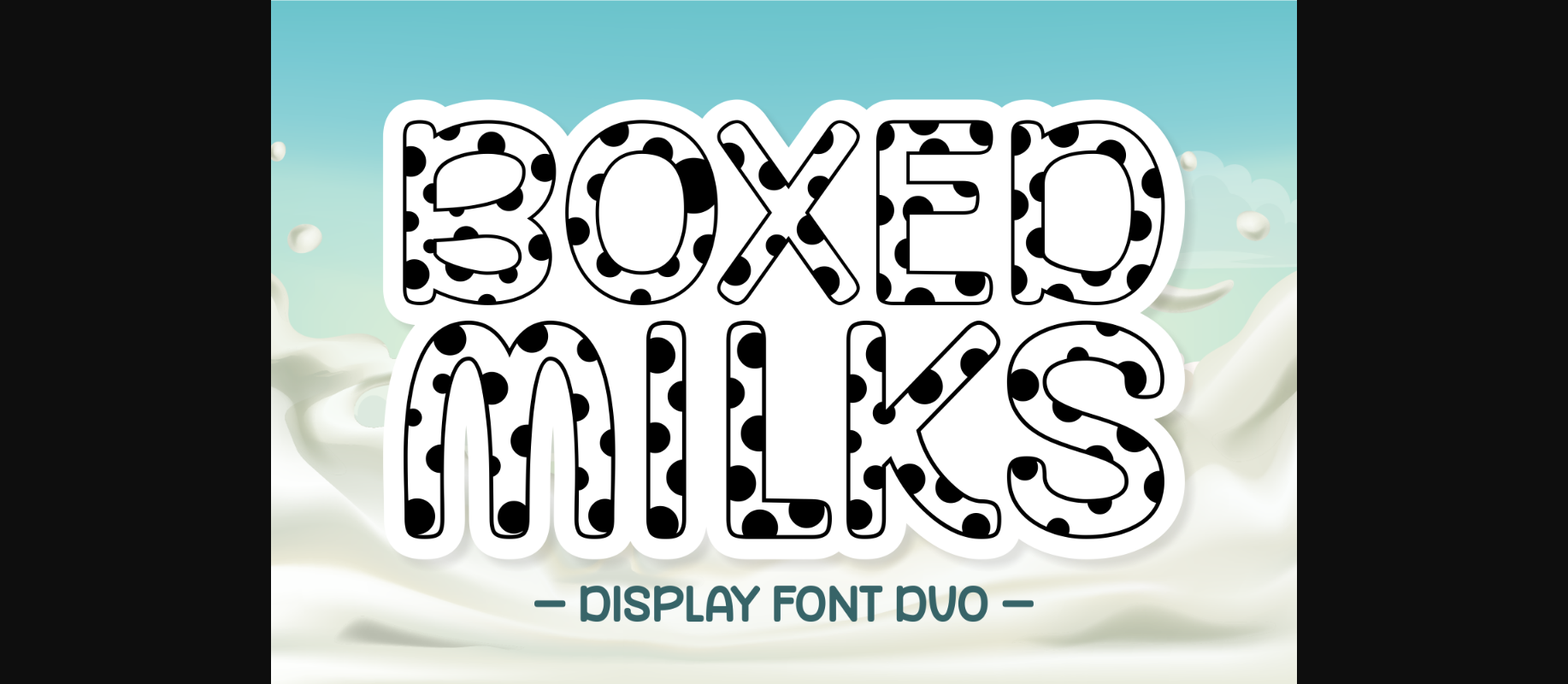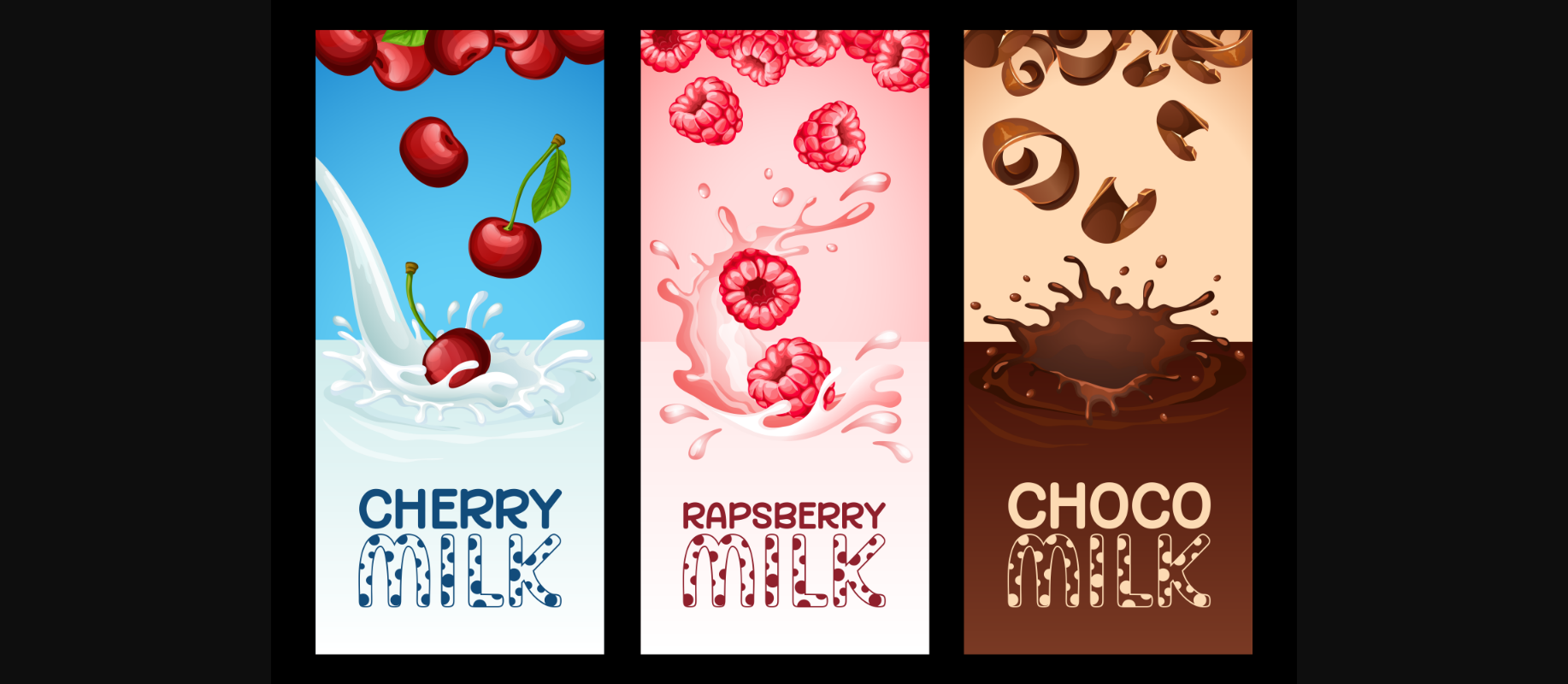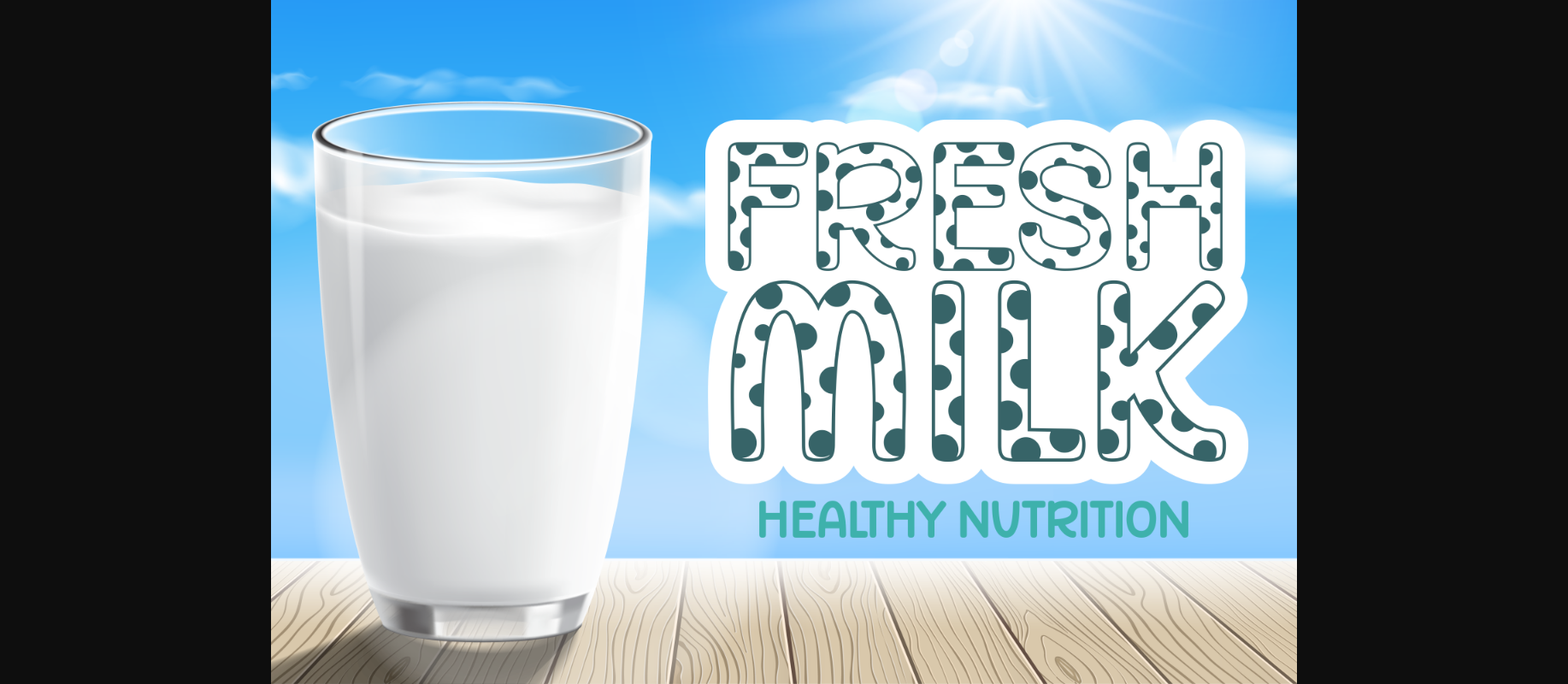
About Boxed Milks Font
Boxed Milks is the cutest cow print font out there! Take your kid-friendly designs to the next level and make your nursery decorations, onesies, and stickers stand out from the crowd.